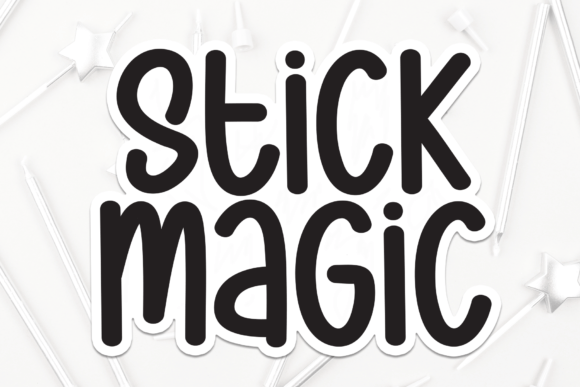
Introducing Stick Magic Font: A Sweet and Friendly Handwritten Font
When it comes to creating visually appealing designs, typography plays a crucial role. A font can make or break the aesthetic of a project, which is why choosing the right one is essential. If you’re looking for a font that is both sweet and friendly, look no further than Stick Magic Font. This beautiful handwritten font is perfect for a wide range of designs, from creative projects to commercial use.
The Unique Style of Stick Magic Font
Stick Magic Font boasts a natural and unique style that sets it apart from other fonts. Its handwritten feel makes it incredibly fitting for designs that require a personal touch. The font’s sweet and friendly tone is perfect for projects that aim to convey a sense of approachability and warmth. Whether you’re creating a logo, a poster, or a digital product, Stick Magic Font is sure to add a touch of personality to your design.
Key Features of Stick Magic Font
- Handwritten style: Stick Magic Font has a natural, handwritten feel that makes it perfect for designs that require a personal touch.
- Sweet and friendly tone: The font’s tone is both sweet and friendly, making it ideal for projects that aim to convey a sense of approachability and warmth.
- Unique style: Stick Magic Font has a unique style that sets it apart from other fonts, making it perfect for designs that require a distinctive look.
- Versatile: The font is incredibly versatile and can be used for a wide range of designs, from creative projects to commercial use.
The Benefits of Using Stick Magic Font
Using Stick Magic Font in your designs comes with a range of benefits. Here are just a few:
The Advantages of Stick Magic Font
- Emotional connection: The font’s sweet and friendly tone helps to create an emotional connection with your audience, making your design more relatable and engaging.
- Flexibility: Stick Magic Font is incredibly versatile and can be used for a wide range of designs, from creative projects to commercial use.
- Unique look: The font’s unique style sets it apart from other fonts, making your design stand out from the crowd.
How to Use Stick Magic Font in Your Designs
Using Stick Magic Font in your designs is easy. Here are a few tips to get you started:
Tips for Using Stick Magic Font
- Pair with other fonts: Stick Magic Font pairs well with other fonts, so don’t be afraid to experiment with different combinations.
- Use for headlines and body text: The font is suitable for both headlines and body text, making it a great choice for a wide range of designs.
- Experiment with colors: Stick Magic Font looks great in a range of colors, so don’t be afraid to experiment with different color schemes.
- Use for digital and print designs: The font is suitable for both digital and print designs, making it a great choice for a wide range of projects.
Examples of Stick Magic Font in Use
Stick Magic Font is a versatile font that can be used for a wide range of designs. Here are a few examples of how it can be used:
Examples of Stick Magic Font in Use
- Logos and branding: Stick Magic Font is perfect for logos and branding projects that require a sweet and friendly tone.
- Posters and flyers: The font is great for posters and flyers that require a bold and eye-catching headline.
- Digital products: Stick Magic Font is suitable for digital products, such as ebooks, apps, and websites.
- Wedding and event designs: The font’s sweet and friendly tone makes it perfect for wedding and event designs, such as invitations and programs.
Stick Magic Font is a beautiful handwritten font that is perfect for a wide range of designs. Its sweet and friendly tone, unique style, and versatility make it a great choice for designers who want to add a personal touch to their projects. Whether you’re creating a logo, a poster, or a digital product, Stick Magic Font is sure to impress.